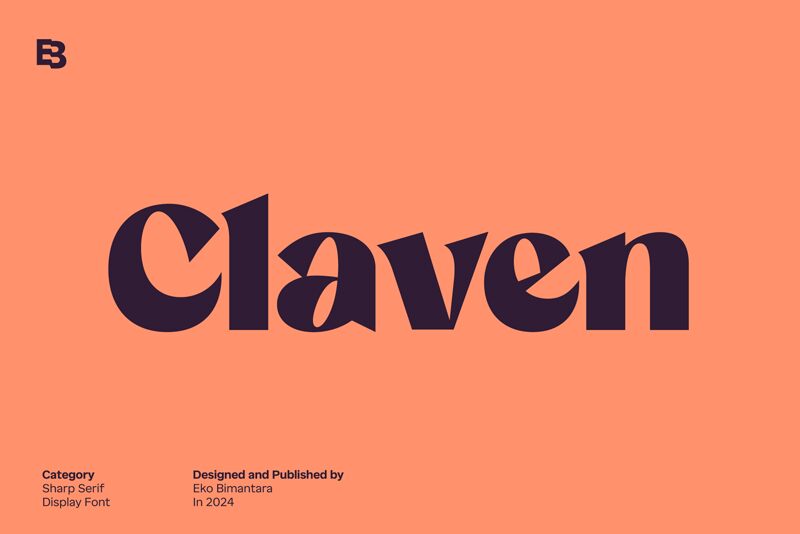
Claven Trial
Claven font by Eko Bimantara is a bold serif font with a powerful presence. Defined by strong characters and minimal ornamentation, this typeface has a modern aesthetic that carries a geometric influence. The directional change between thick and thin lines is soft in itself while letters don’t portray the same level of weight – some light and others heavier.